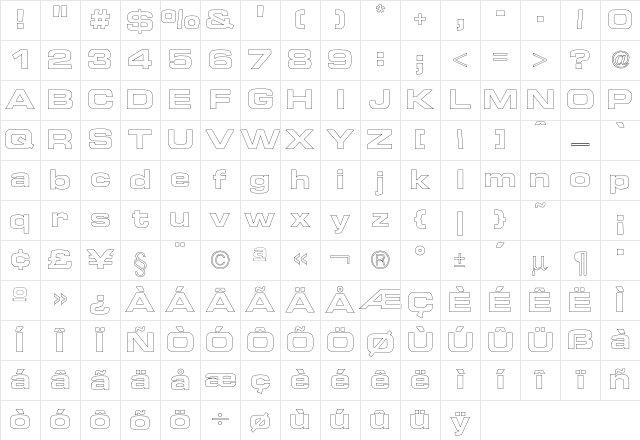
Complete Euro TechnicExtBoldOutline glyph index. Displaying only characters natively supported by Euro TechnicExtBoldOutline font.
Euro has a distinctly futuristic character, with geometric precision and clean angles that feel at home in technology, gaming, and sci-fi contexts. Its bold stroke weight gives it real presence on the page.
Pro Tip: Try Euro with generous letter-spacing in UI labels and navigation - the geometric forms benefit from room to breathe.